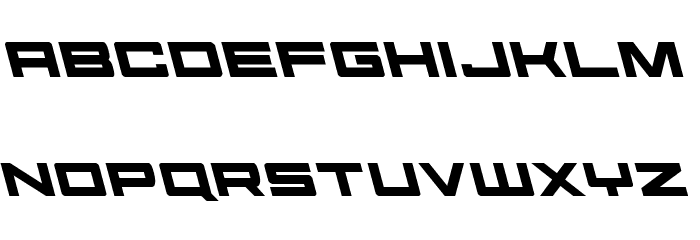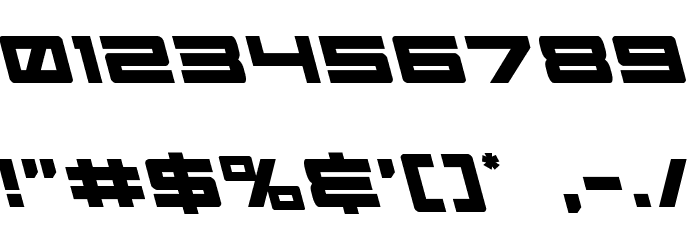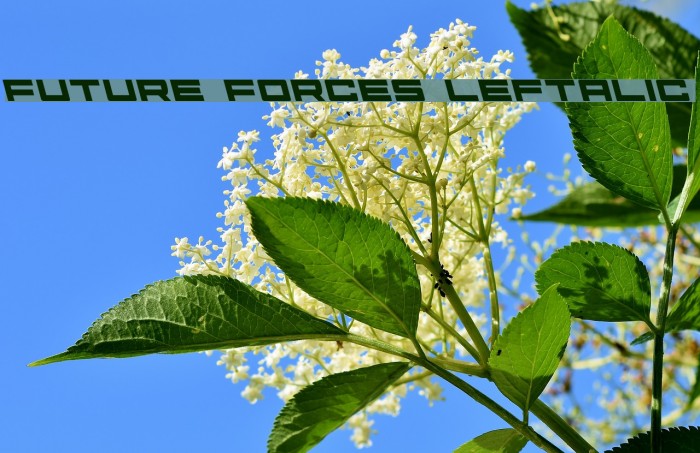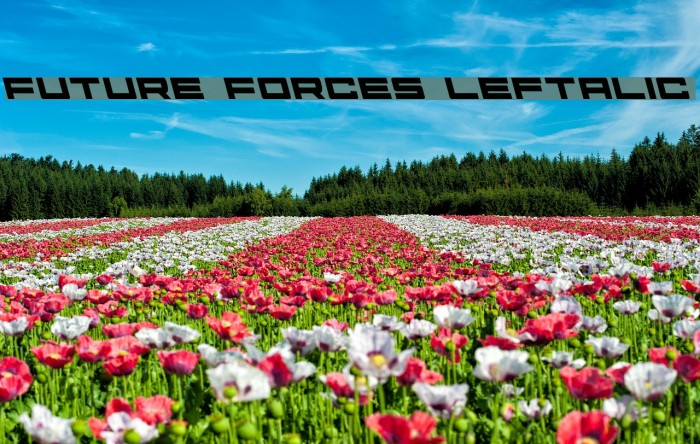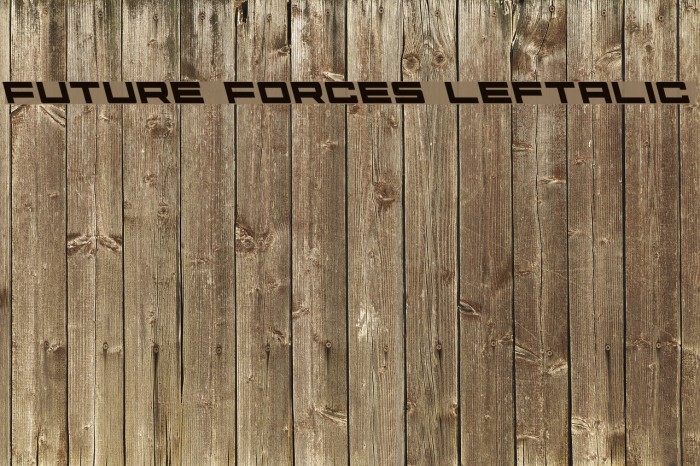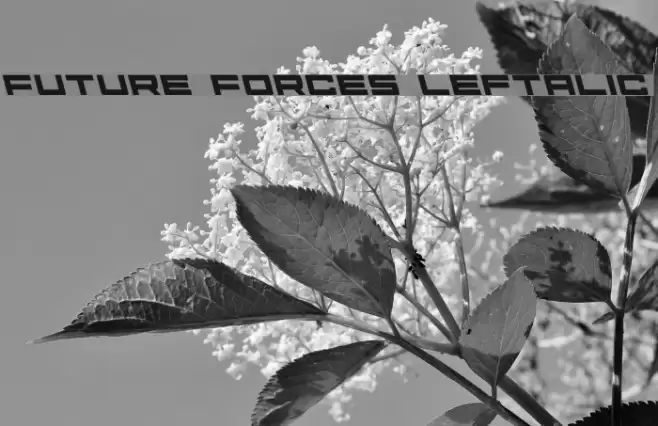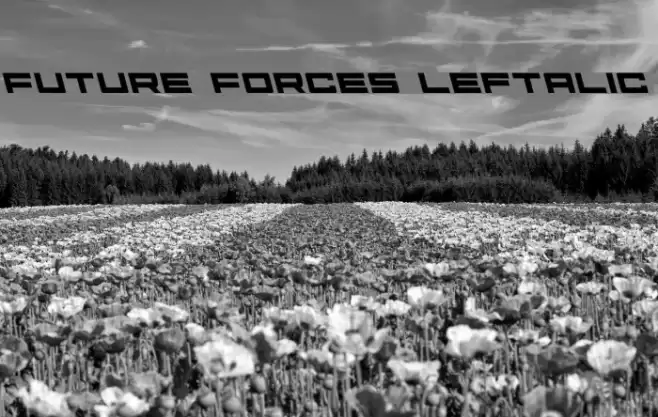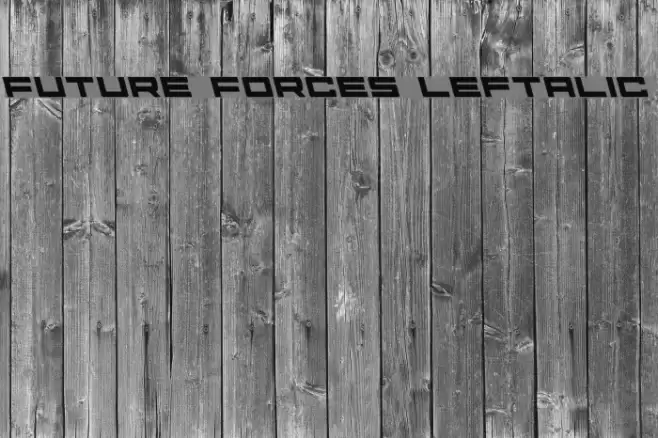
Future Forces Leftalic
This font features a futuristic and angular design, characterized by its bold and geometric letterforms. The characters are slightly slanted, giving a dynamic and forward-moving appearance. The uppercase letters are uniform in height, while the lowercase letters maintain a consistent style. The numbers are distinct and match the overall aesthetic, with sharp edges and a modern look. Special characters are designed to complement the angular style, making this font suitable for projects that require a contemporary and tech-inspired feel.
A futuristic, angular font with bold, slanted letterforms.
- Proposed Projects: Ideal for sci-fi themed designs, technology branding, video game titles, and futuristic posters.